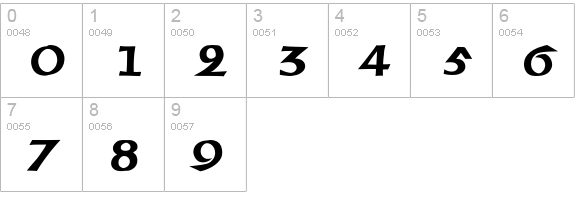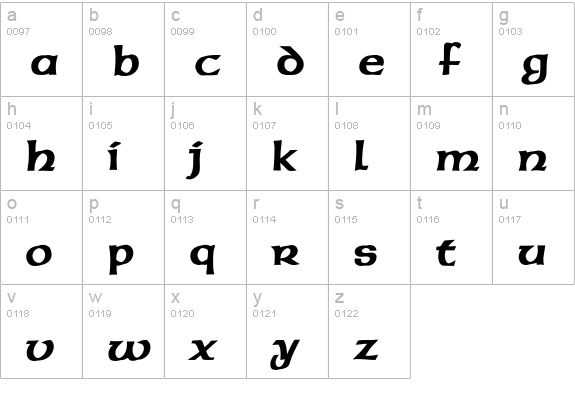
AmericanUnciale Font Details
AmericanUnciale is a charming and distinctive font that exudes a sense of vintage elegance and sophistication. This unique typeface is inspired by ancient calligraphy and features ornate, stylized letterforms that are sure to make a statement in any design project. The graceful curves and intricate details of AmericanUnciale give it a timeless appeal that is perfect for adding a touch of class to invitations, logos, signage, and more. The best part? AmericanUnciale is available for free download at FontsMarket.com. This means that you can easily incorporate this stunning font into your projects without having to worry about breaking the bank. Whether you're a designer looking to add a touch of old-world charm to your work or simply a fan of beautiful typography, AmericanUnciale is sure to impress with its elegant style and versatility. Download it today and elevate your designs with this exquisite typeface.